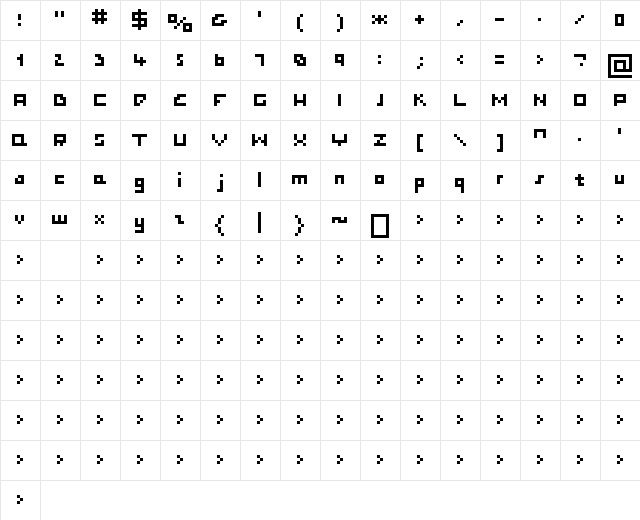
00Basix Regular
00Basix offers clean, dependable letterforms without strong stylistic allegiance, making it a practical choice for designers who need flexibility.